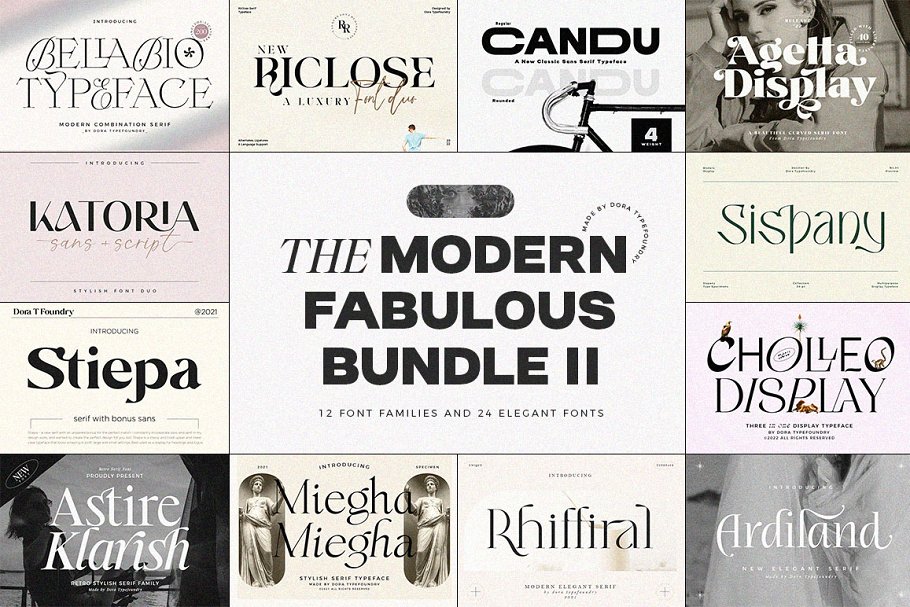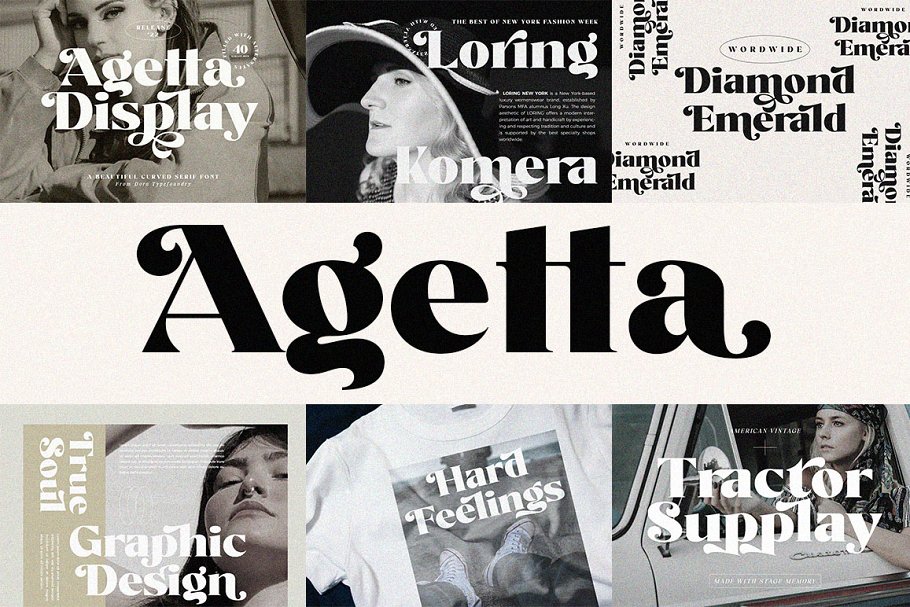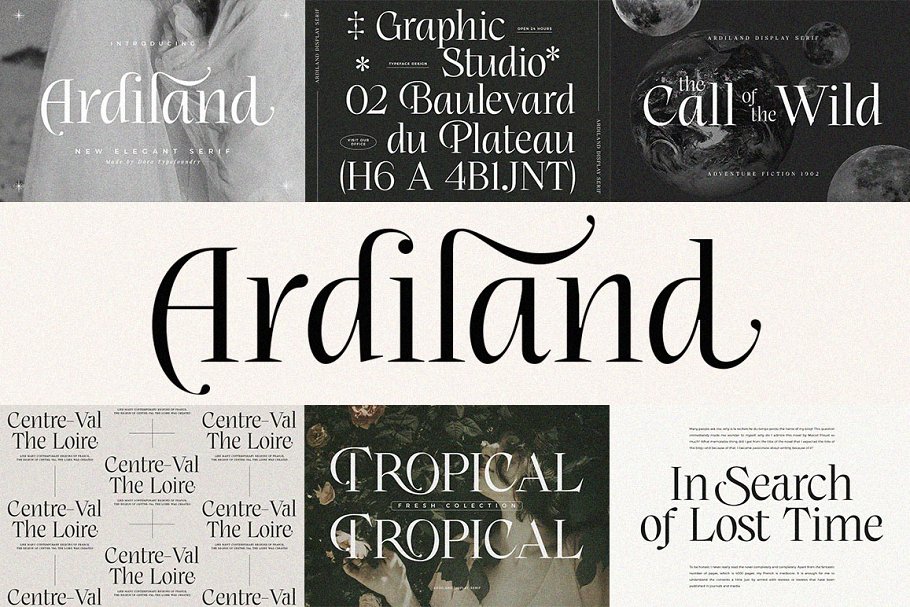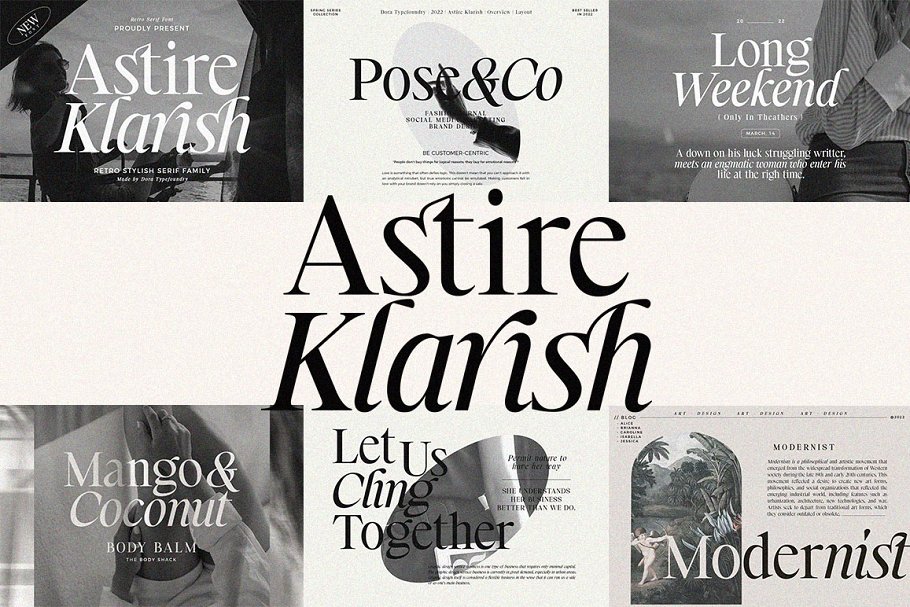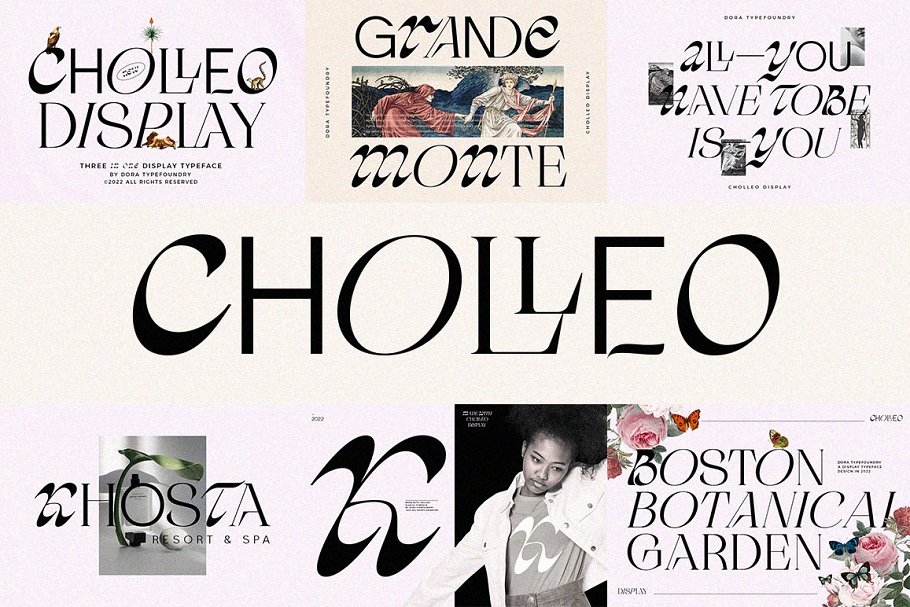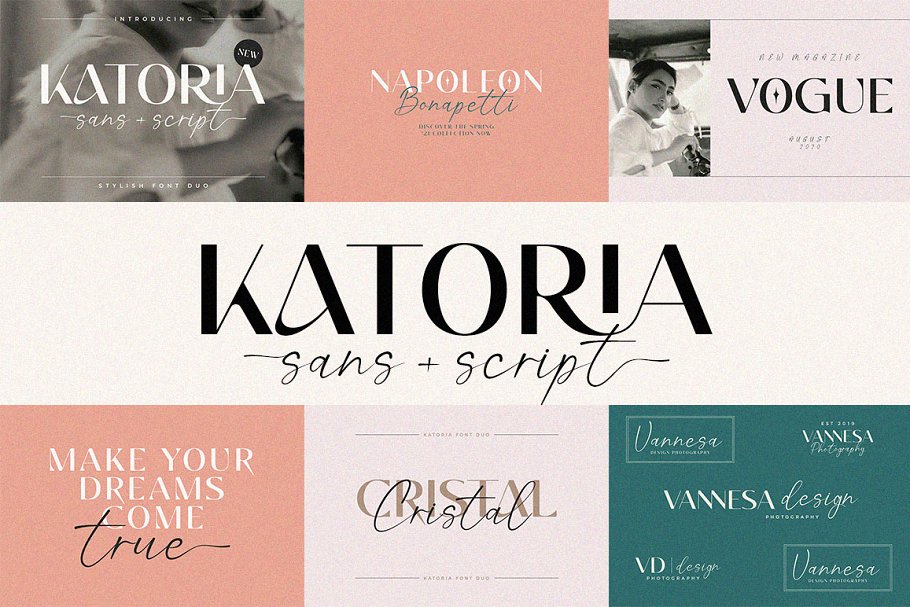
Modern Fabulous Bundle Vol.2 Font Free Download
About the Modern Fabulous Bundle Vol.2
Introducing Font Bundle Vol, 2 – 24 fonts in 12 typefacesThe modern fabulous bundle vol 2 ad here we have collected all the latest products from 12 best selling font families & 24 elegant fonts with hundreds of glyphs including alternative,ligatures, check placing preview image to see what you will get, and international language support, which can be accessed using an OpenType smart program such as Adobe Illustrator, Adobe InDesign, CorelDraw X6-X7, Microsoft Word 2010 or later
everything is part of this collection!This font bundle collection is perfect for branding, headings, signatures, logos, blogs, wedding invitations, t-shirts, letterheads, merchandise, signage, labels, news, posters, badges etc, All Fonts here:Ardiland Elagant Serif ( New Font 2022 ) https://crmrkt